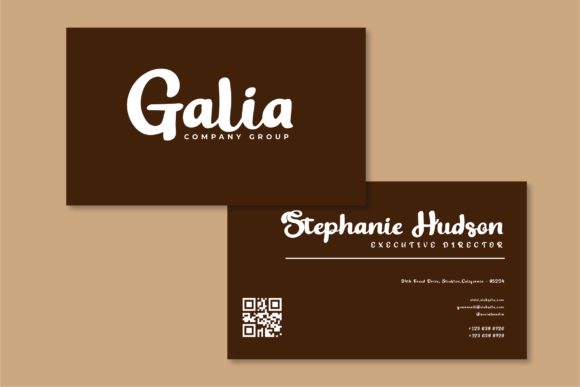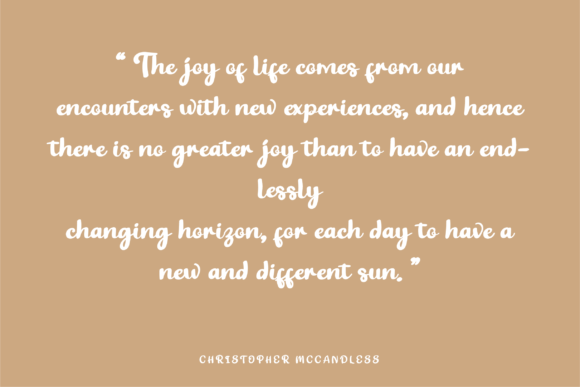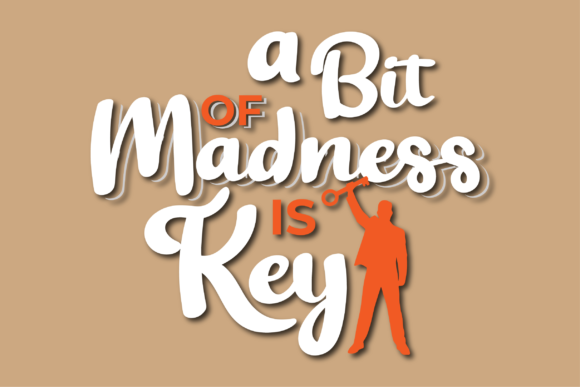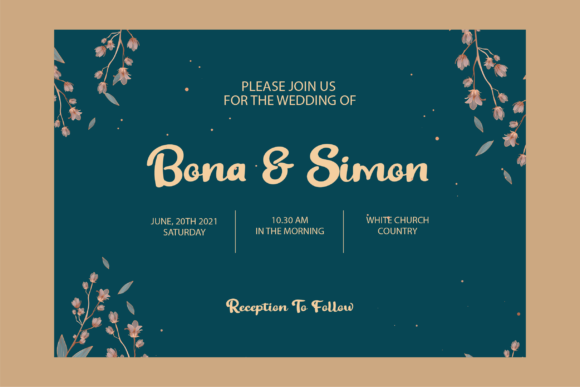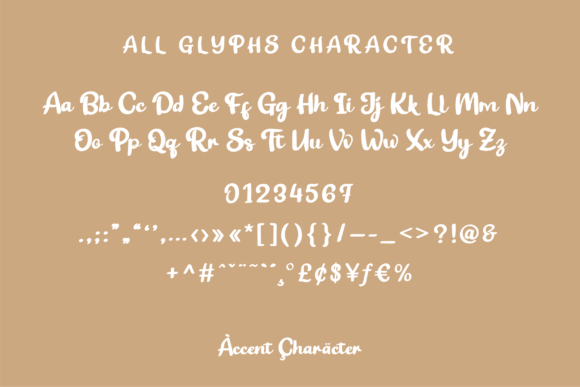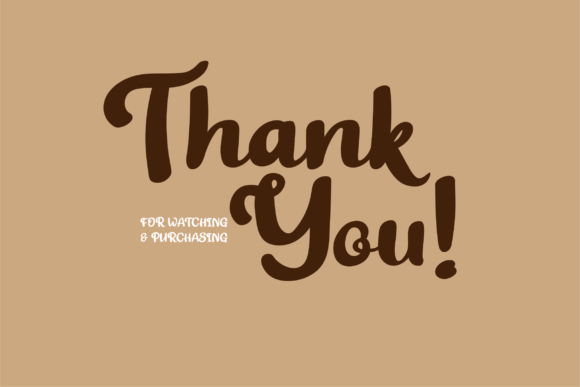
Introduction to Kuebeg Font Font
Fonts play a crucial role in design, and the Kuebeg Font font is a typeface that brings both character and versatility to any project. Whether you’re working on a branding project, a website, or a print design, the Kuebeg Font font offers a unique style that can elevate your work.
Kuebeg is a casual, fun handwritten font, created by using a brush pen.
It will elevate a wide range of design projects to the highest level, be it branding, headings, wedding designs, invitations, signatures, logos, labels, and much more .
Key Features of Kuebeg Font Font
Why Choose Kuebeg Font Font?
The Kuebeg Font font is more than just a typeface – it’s a design tool that helps you communicate your message with style and clarity. Its unique character set and versatile design make it suitable for a wide range of applications, from elegant invitations to bold headlines.
With its carefully crafted letterforms and balanced proportions, the Kuebeg Font font ensures readability and visual appeal across all mediums.
What makes Kuebeg Font font special?
The Kuebeg Font font stands out with its unique design, exceptional readability, and versatility across various design applications.